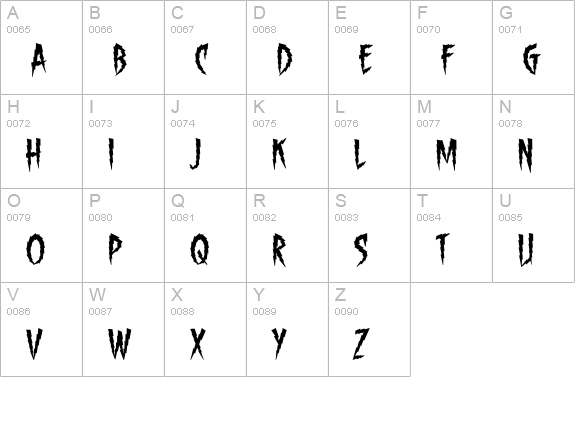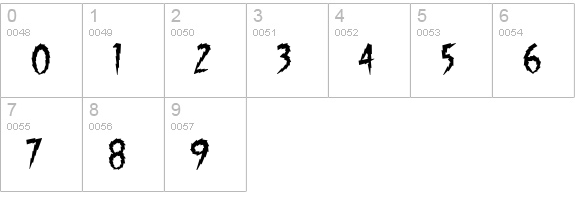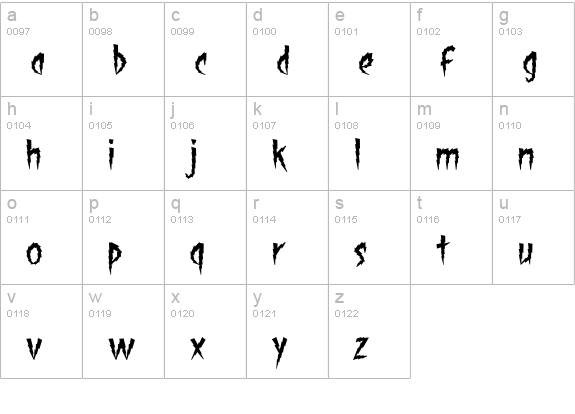
ShockTherapy BB Font Details
ShockTherapy BB font is a bold and electrifying typeface designed to make a statement. With its sharp edges and dynamic style, this font is perfect for creating eye-catching designs that demand attention. Whether you're working on a poster, logo, or website, ShockTherapy BB font will add a jolt of energy to your project. Best of all, ShockTherapy BB font is completely free to download at FontsMarket.com. This means that you can easily add this electrifying font to your collection without breaking the bank. Don't miss out on the opportunity to enhance your designs with the powerful impact of ShockTherapy BB font – download it today and let your creativity shine!